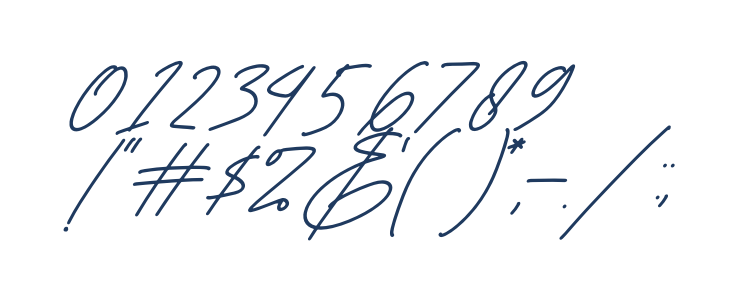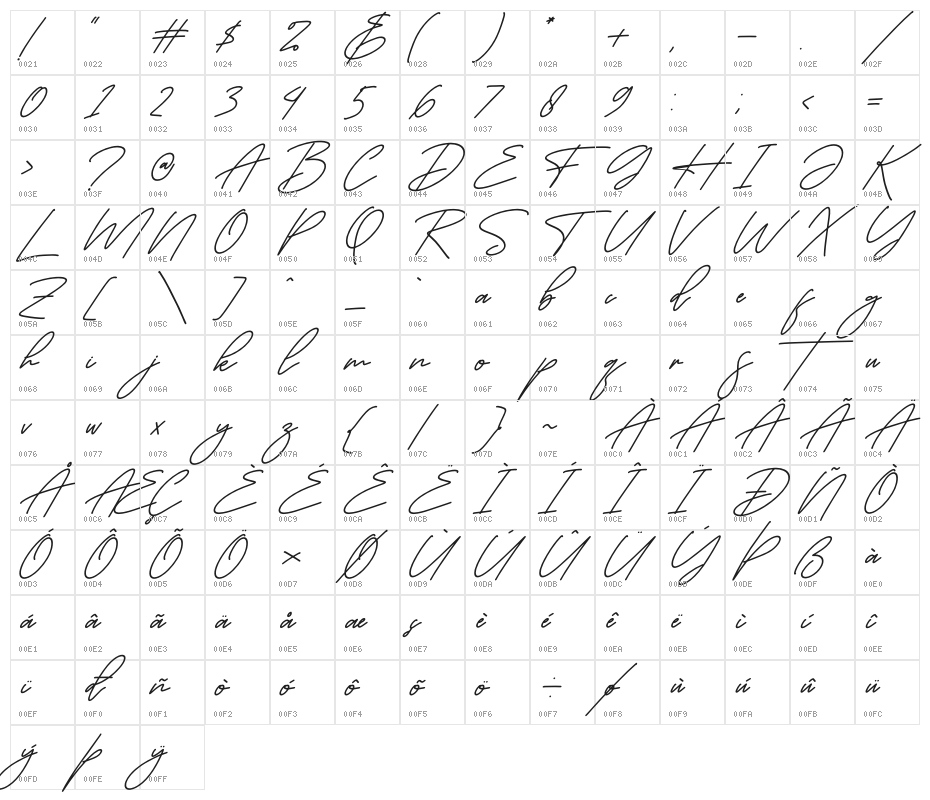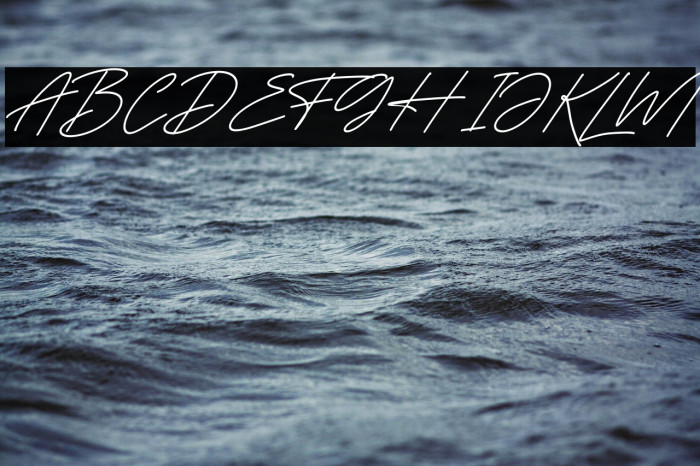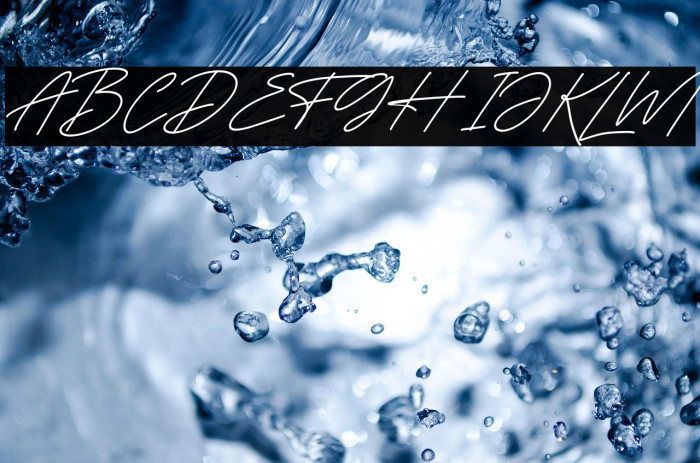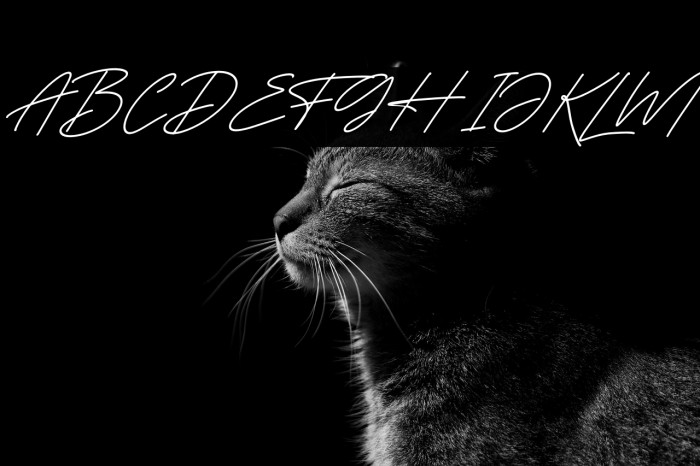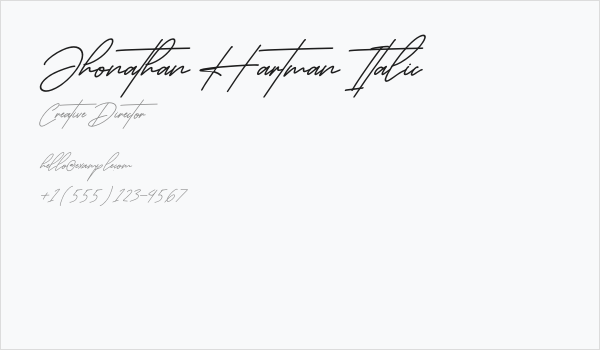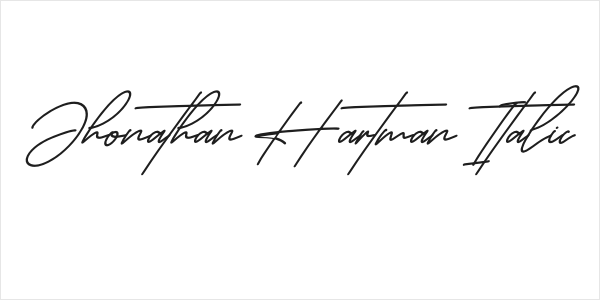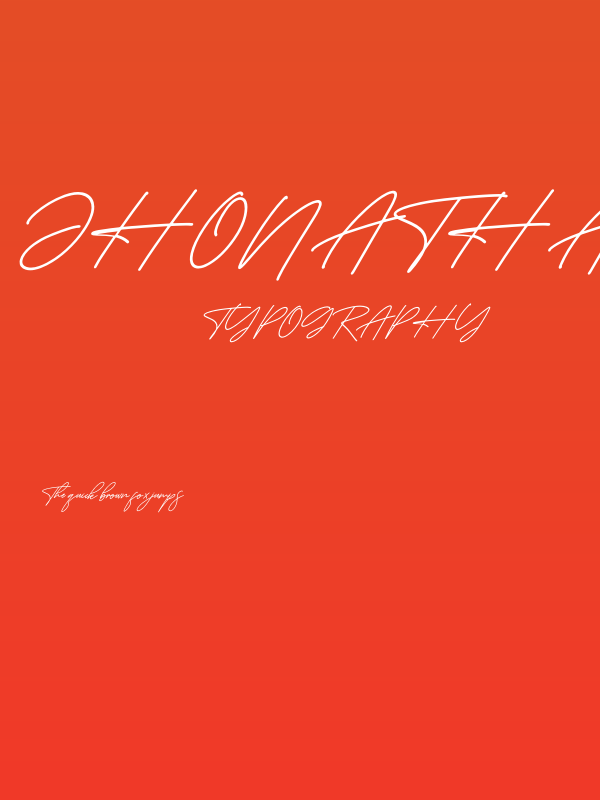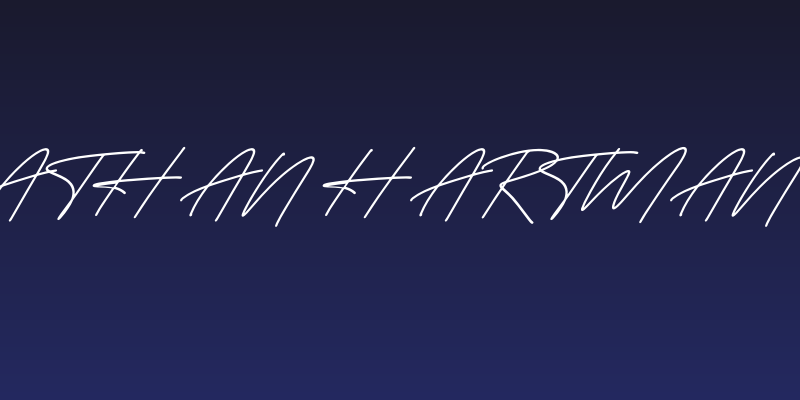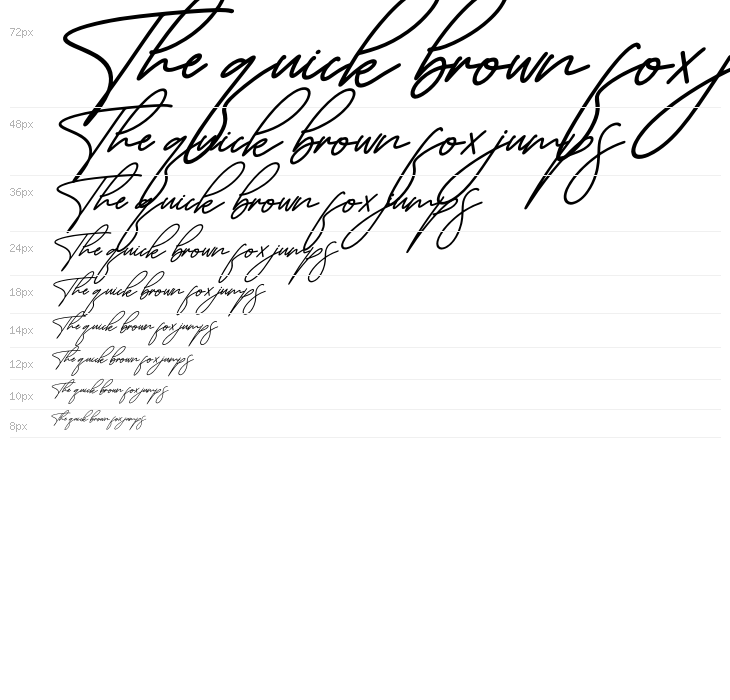
Jhonathan Hartman Italic Font
Jhonathan Hartman Italic Description
This font features a fluid and elegant script style, characterized by its italicized, cursive letterforms. The strokes are smooth and continuous, giving it a handwritten appearance. The uppercase letters are slightly more formal, while the lowercase letters exhibit a more casual and flowing style. The numbers and special characters maintain the same cursive aesthetic, ensuring consistency across all glyphs. This font is ideal for projects that require a personal touch, such as invitations, greeting cards, or branding materials. The overall design is both sophisticated and approachable, making it versatile for various applications.
Overall StyleElegant, Handwritten
Use CaseLogos, Invitations, Personal projects
Proposed ProjectsIdeal for invitations, greeting cards, branding, and personal projects.